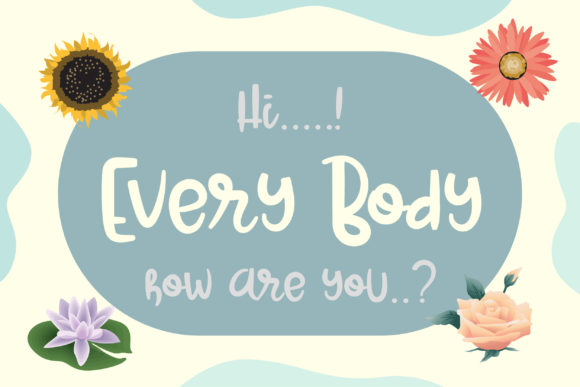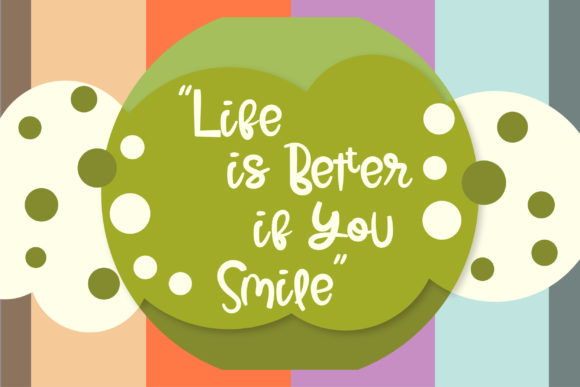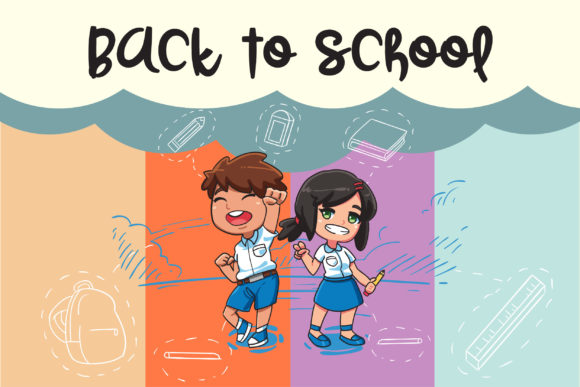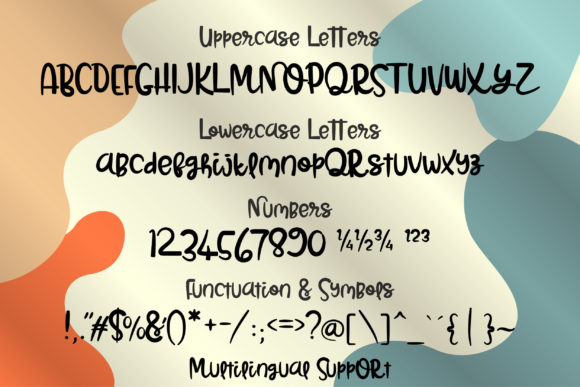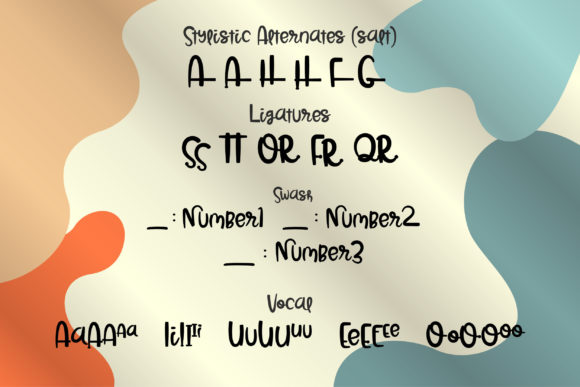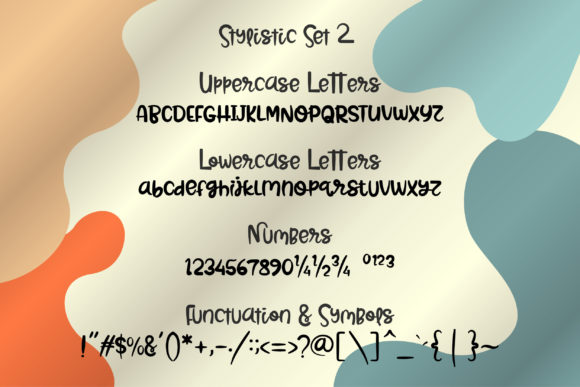
Introduction to Nemukien Dream Font
Have you ever been working on a creative project and stumbled upon the perfect font to bring your design to life? For many designers, this moment is a game-changer. It’s the moment when all the elements come together, and the design starts to feel truly special. For those who are about to experience this magic, we’re excited to introduce you to the Nemukien Dream Font.
This stunning display font is not only a feast for the eyes but also a valuable resource for designers. With its cool and fun style, it’s perfect for adding a touch of personality to your designs. Plus, with PUA encoding, you’ll have access to all the glyphs and swashes, making it incredibly versatile and easy to use. Whether you’re working on a design project or just want to experiment with a new look, the Nemukien Dream Font is a high-quality design resource that’s sure to inspire.
Key Features of Nemukien Dream Font
- Transparent background: This font allows for a seamless integration with any design, making it perfect for creative projects that require a high level of customization.
- High-quality design: With its unique and elegant design, this font is ideal for any creative project that requires a touch of sophistication.
- High-resolution design: The font is designed at a high resolution, making it perfect for use in large-scale designs, such as billboards and posters.
- Unique characteristics: The Nemukien Dream Font features a distinctive and dreamy quality, making it perfect for designers who want to add a touch of whimsy to their projects.
Honest Review: Nemukien Dream Font
I recently had the chance to work with the Nemukien Dream Font, and I must say it’s been a delightful addition to my design resource library. ✨ The font’s unique, whimsical style has brought a touch of magic to my creative project.
Here are some of the things I love about the Nemukien Dream Font:
- Its transparent background makes it easy to layer with other design elements.
- The font’s high level of customization allows for endless creative possibilities.
- It’s suitable for a wide range of design projects, from branding to editorial work.
⚠️ While the font is generally well-behaved, I did experience some issues with it when used in certain font sizes. Be sure to test it thoroughly in different contexts to avoid any potential problems.
Overall, I’m thoroughly impressed with the Nemukien Dream Font. Its unique style and high quality make it a valuable addition to any designer’s toolkit. If you’re looking for a reliable design resource for your next creative project, I highly recommend giving it a try.
Tips for Getting the Most Out of Nemukien Dream Font
Experiment with different font sizes and styles to achieve the perfect look for your project. Combine the Nemukien Dream Font with other design elements, such as graphics and images, to create a visually appealing design.
The Nemukien Dream Font is ideal for creative projects, such as graphic design, digital art, and typography. You can use it to create posters, flyers, business cards, and more.